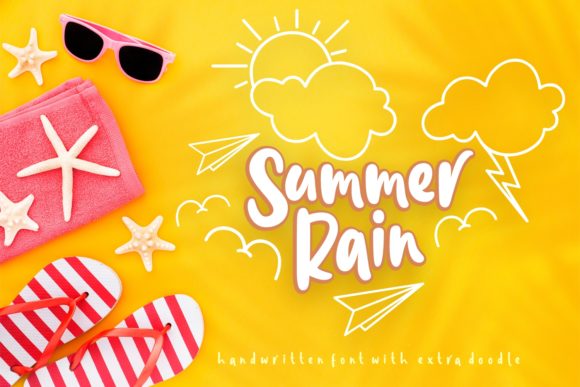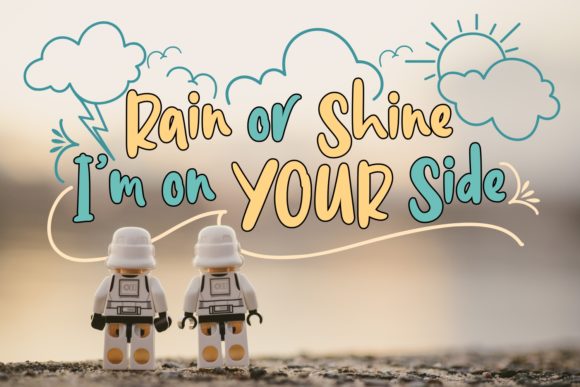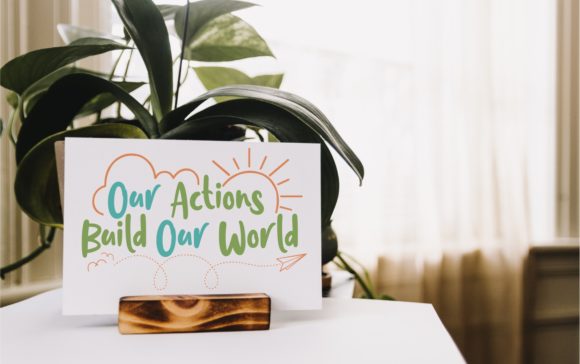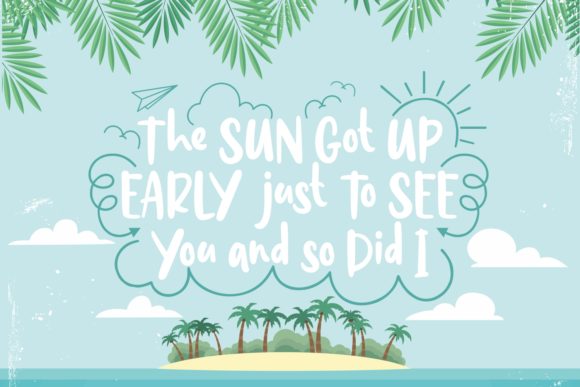
Summer Rain Font
About Summer Rain Font
Summer Rain is a charming handwritten font with playful character. Get inspired by its casually optimistic appearance!